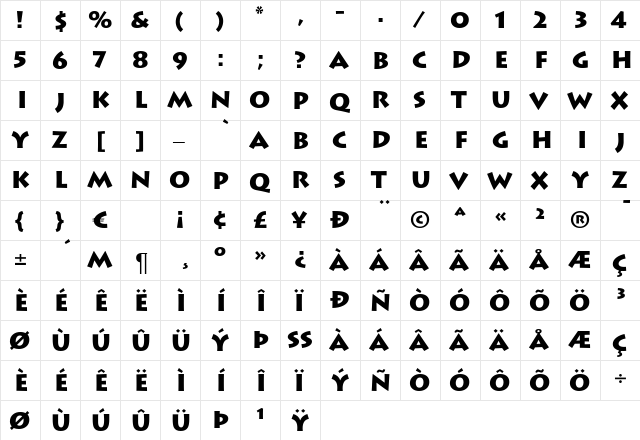
Literat Black DB Regular
Design Context for Literat Black DB Typeface
Literat Black DB offers clean, dependable letterforms without strong stylistic allegiance, making it a practical choice for designers who need flexibility.
Pro Tip: Use Literat Black DB in both headline and body roles to test its range before committing to a single application.